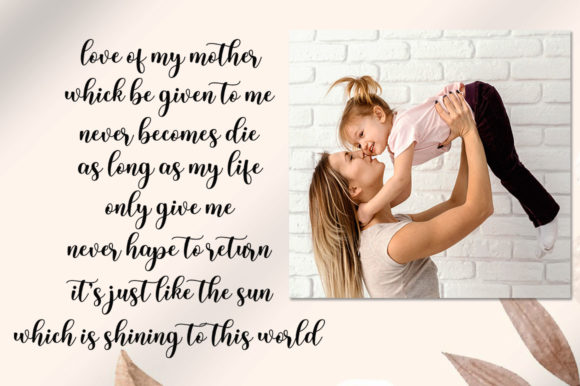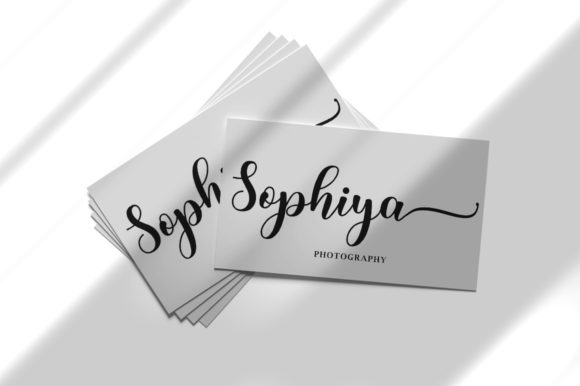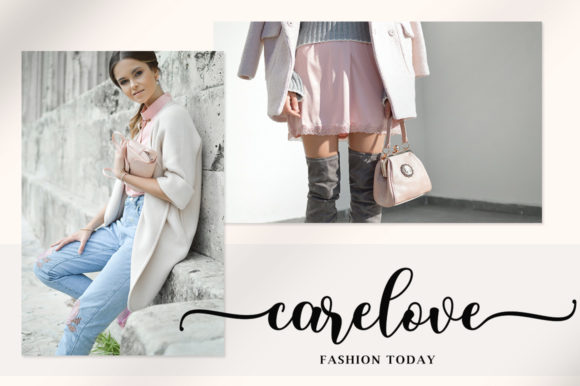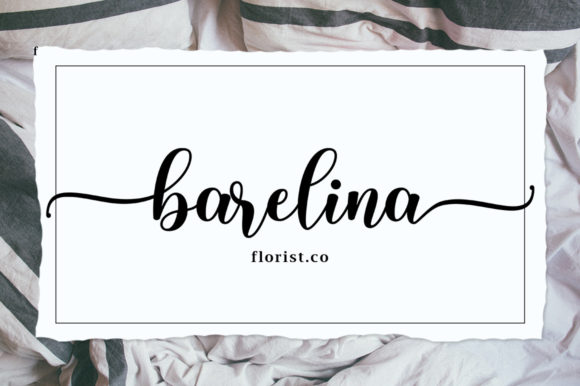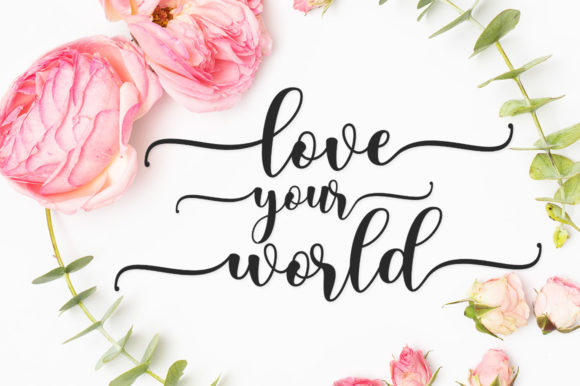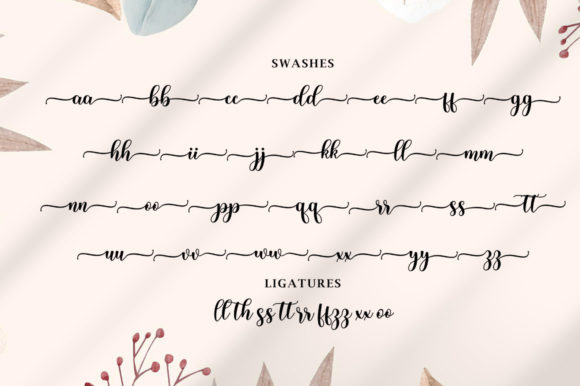
A New Dimension in Typography: Unlocking the Magic of Astri Script Font
There’s something magical about creating something from scratch – the spark of inspiration, the rush of ideas, and the thrill of bringing them to life. For designers, this moment is a familiar and beloved ritual. And what better way to elevate that creative spark than with a beautifully crafted font that sets the tone for luxury and sophistication?
| 👤 Author | madjack.font |
Enter Astri Script Font, a stunning light handwritten font that’s sure to leave a lasting impression. With its unique feel and impact, this font is the perfect addition to any design project. Whether you’re crafting a high-end brochure, a premium website, or a luxury brand identity, Astri Script Font is the perfect tool to add that extra touch of elegance.
Astri Script Font Key Features
- Font Family: Astri Script Font is a beautiful, elegant script font designed to add a touch of sophistication to any design.
- Character Set: Includes a wide range of characters, including uppercase and lowercase letters, numbers, and punctuation marks.
- Unique Characteristics: Astri Script Font features a unique, flowing script style with subtle flair and elegance, making it perfect for creating eye-catching designs and adding a personal touch to any project.
Astri Script Font Review
As a designer, I was excited to dive into the Astri Script Font. Here’s my honest review.
- Unique and elegant design – Astri Script Font has a distinctive look that sets it apart from other script fonts.
- Highly customizable – The font offers a range of styles and weights, making it easy to find the perfect fit for your project.
- Excellent legibility – Despite its decorative feel, Astri Script Font is surprisingly easy to read, even at small sizes.
- Not ideal for body text – While Astri Script Font is perfect for headings and titles, it may not be the best choice for large blocks of body text.
- Limited support for non-Latin scripts – If you need to work with languages other than English, you may find that Astri Script Font doesn’t support the characters you need.
Astri Script Font is a beautiful and versatile font that’s perfect for designers looking to add a touch of elegance to their projects. While it may have some limitations, its unique design and high level of customization make it a valuable addition to any font collection.
Astri Script Font is ideal for:
- Typography-based art and graphics.
For optimal results, use Astri Script Font in conjunction with a bold or sans-serif font for contrast.
Experiment with different font sizes and colors to create visually appealing combinations.
Use Astri Script Font to add a touch of elegance and sophistication to your designs.
Great Vibes is a fun and playful script font that’s perfect for creating a relaxed and casual look. It’s great for use in social media, blog designs, and other informal projects. Compared to Astri Script Font, Great Vibes has a more laid-back and friendly feel, making it ideal for designs that need to convey a sense of approachability and warmth.